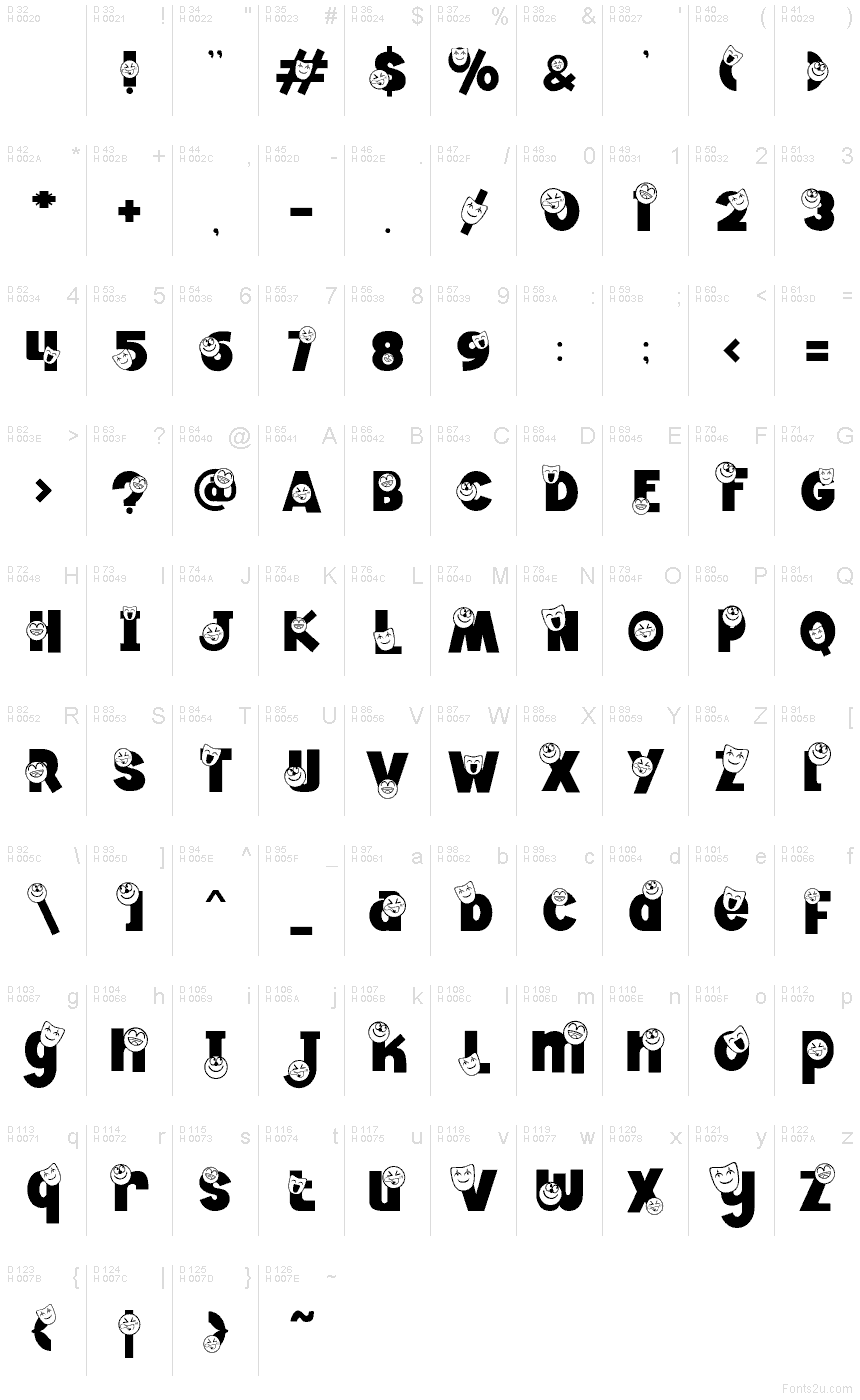
Jester Jumble Mask font by PutraCetol Studio is a bold display font with theatrical and whimsical cartoon elements. Each letter showcases a playful and lively appearance with mask decorations for unique, contrasting visuals. The overall tone captures an amusing theatrical look that is decorative yet clear for ideal readability across designs.